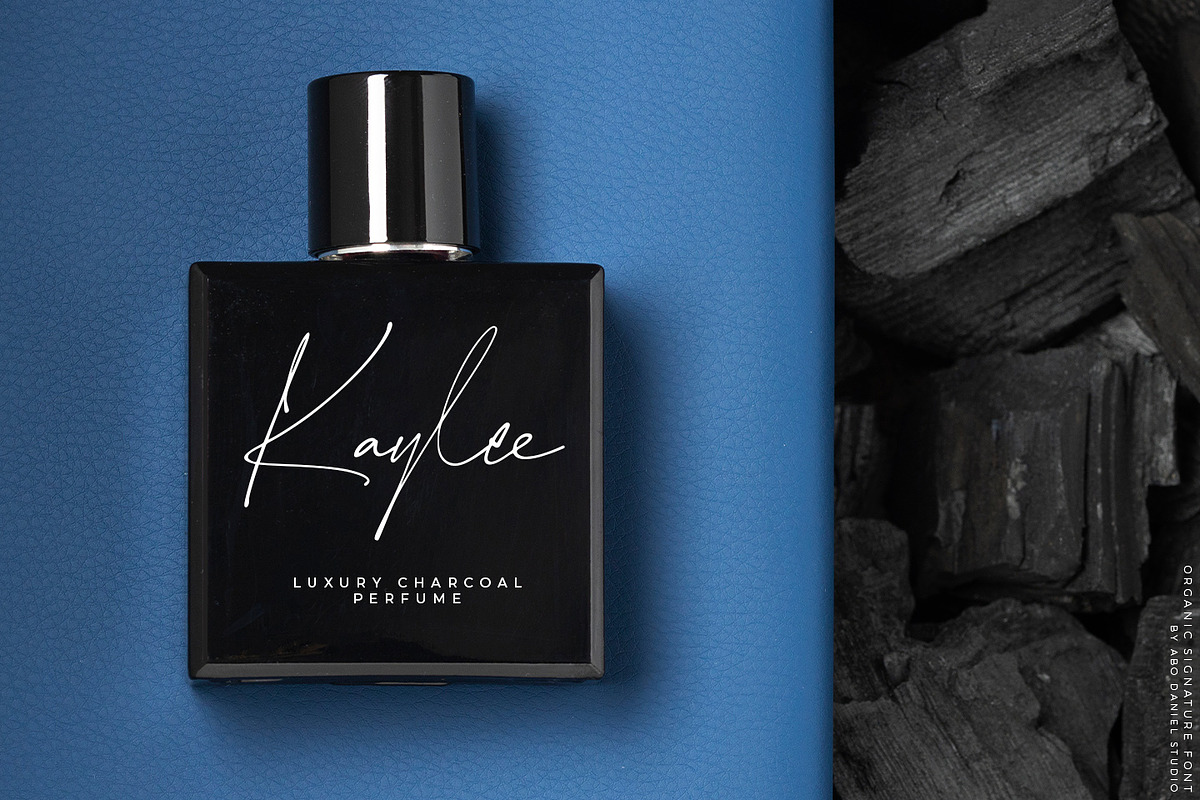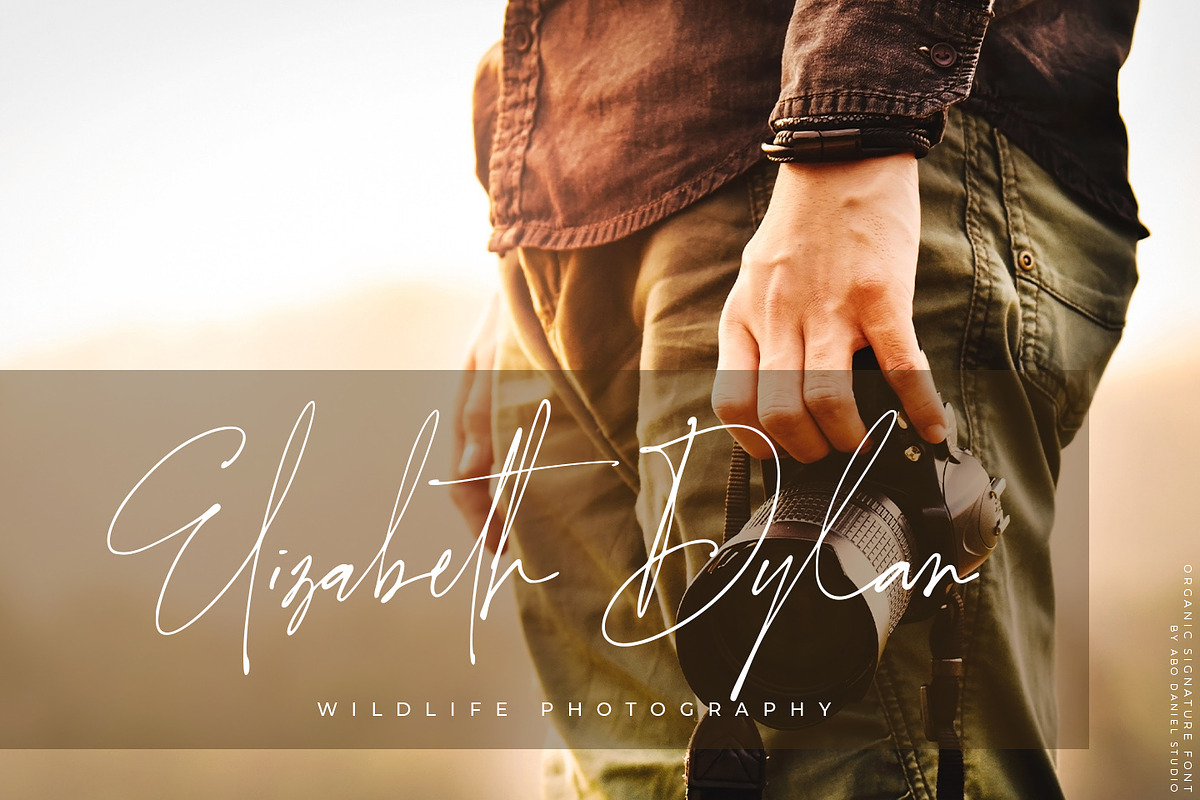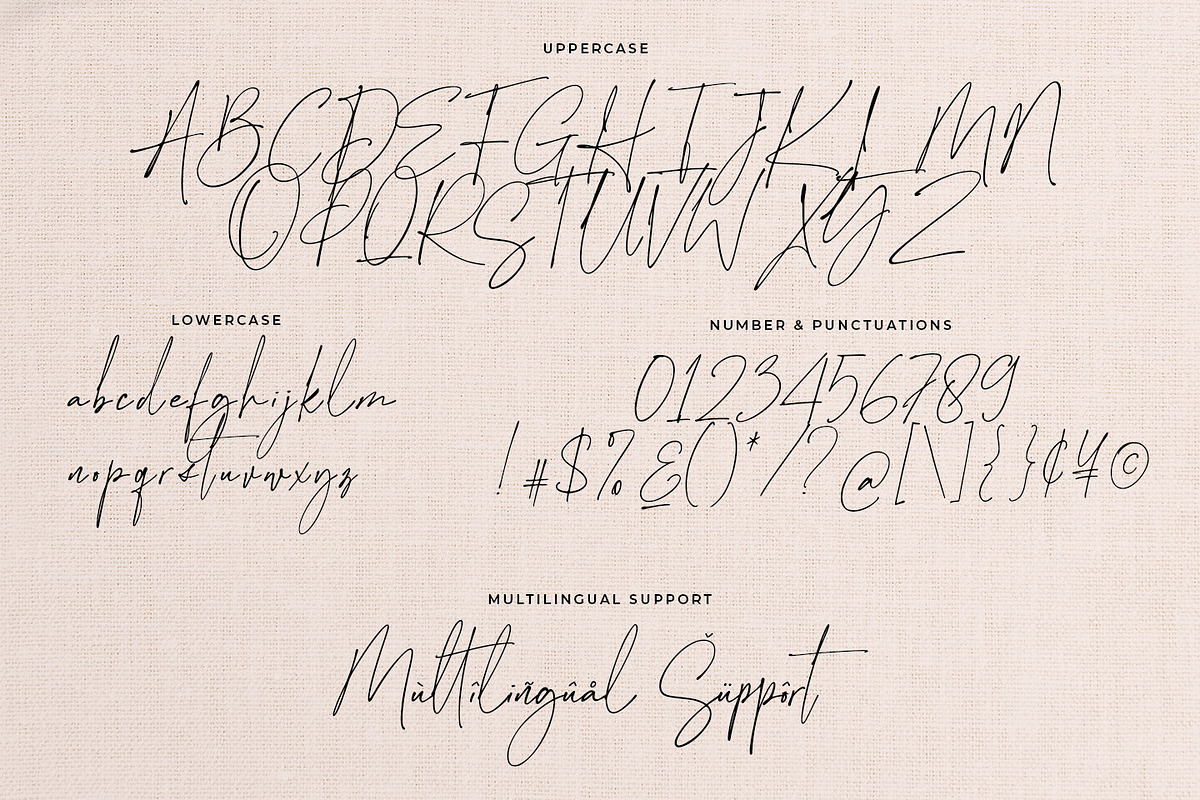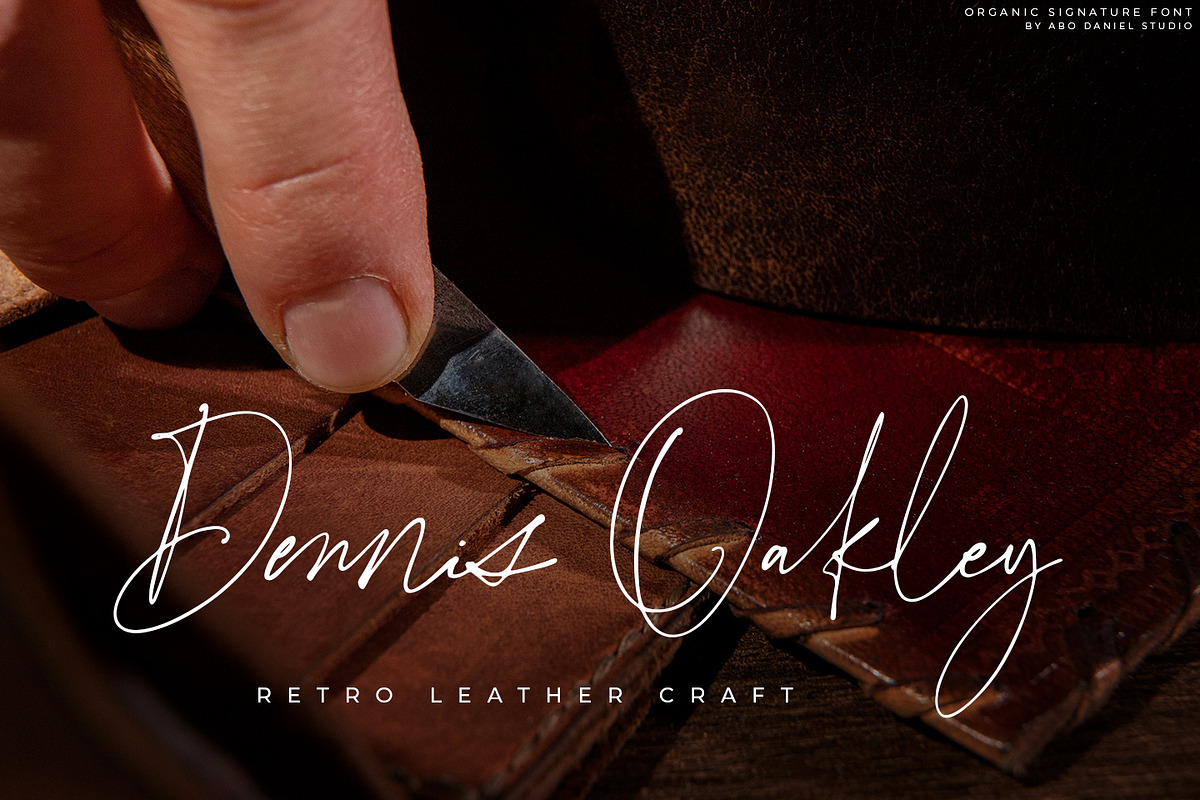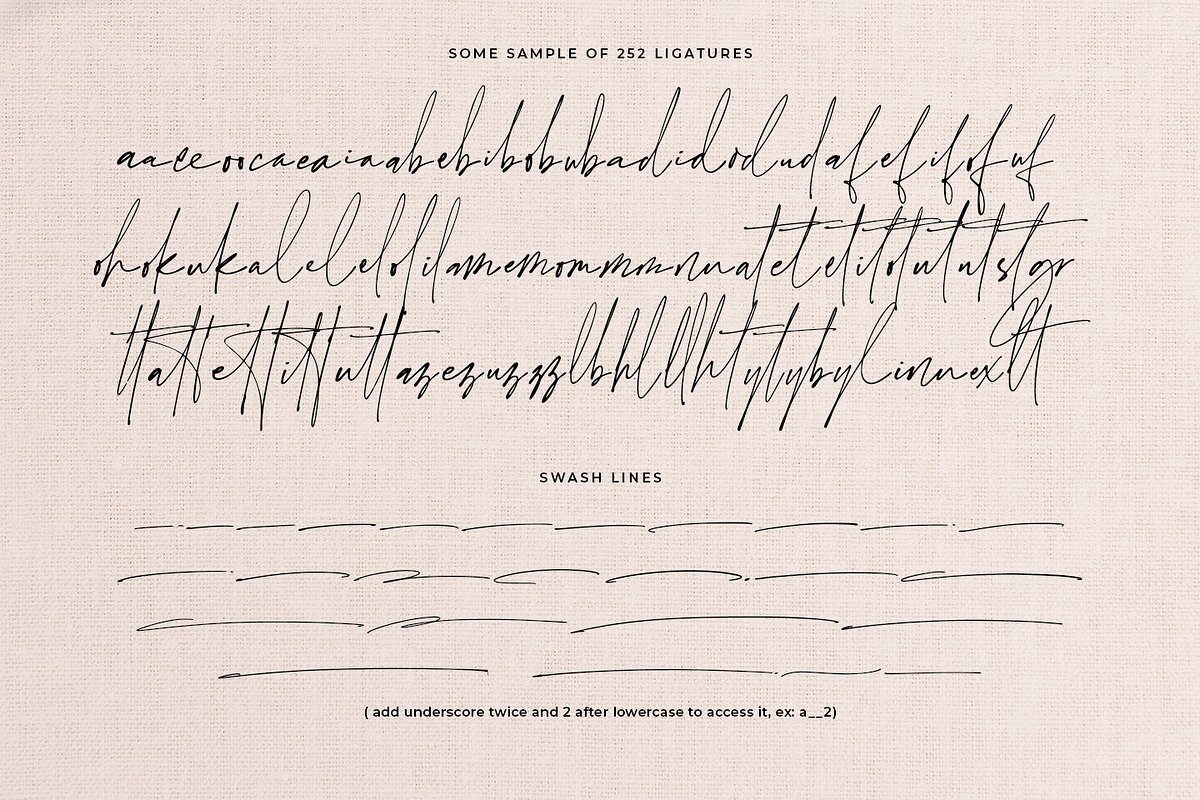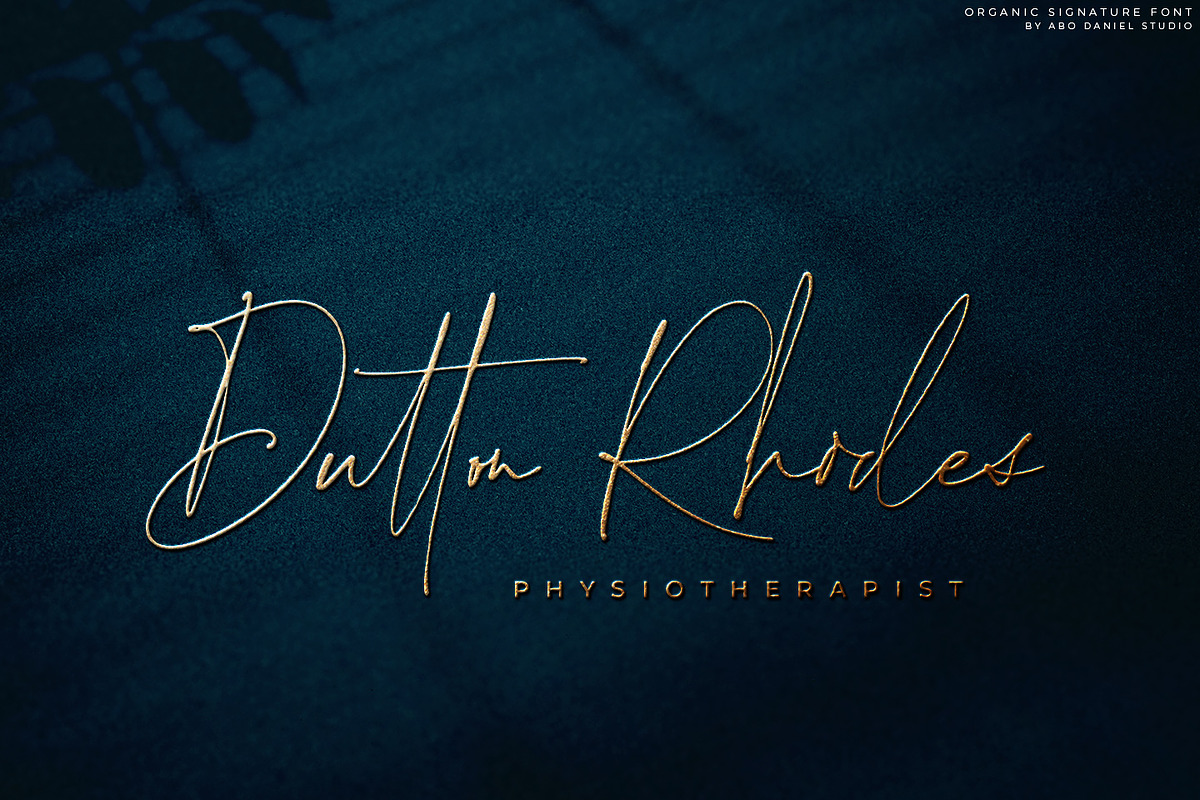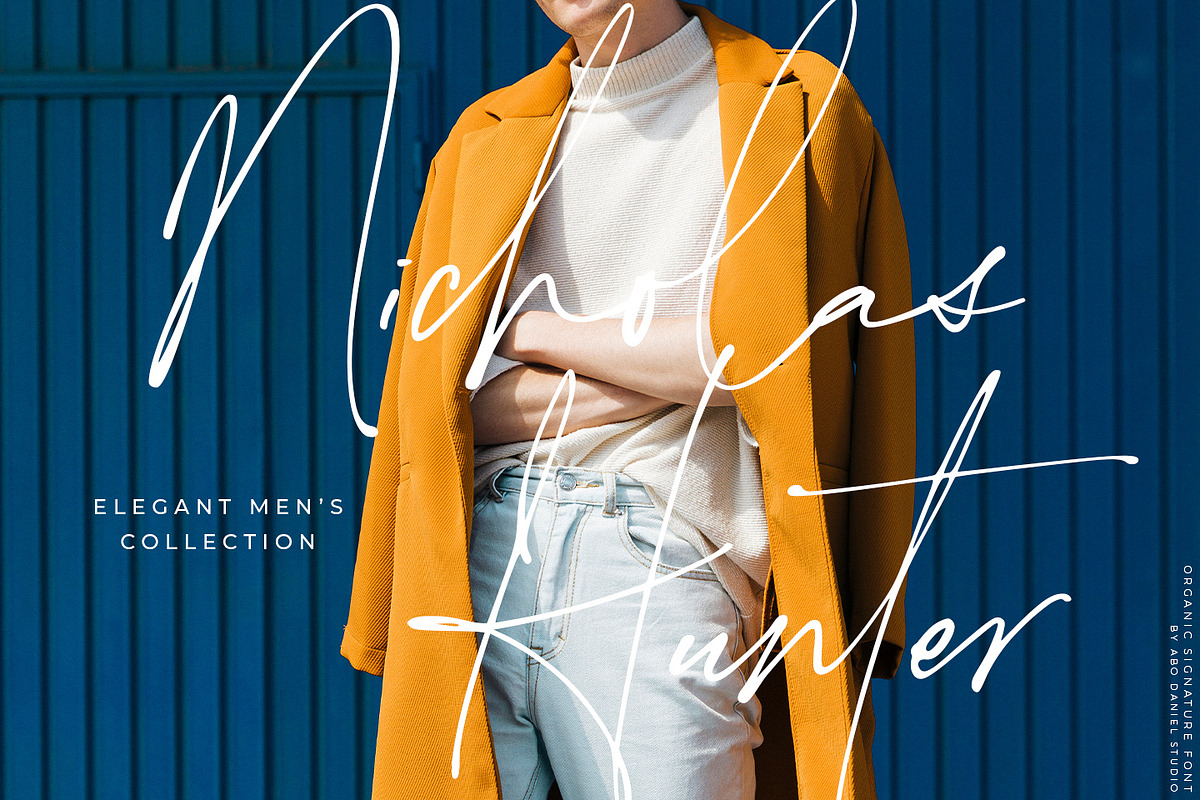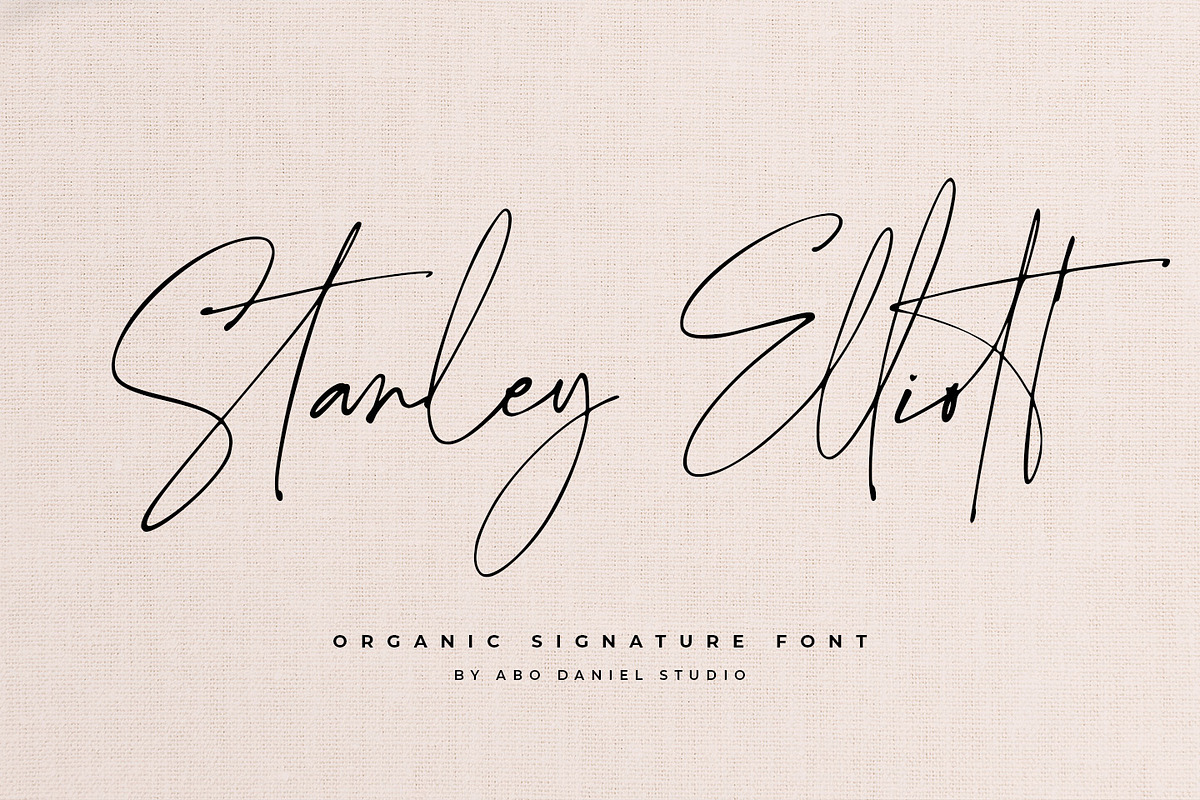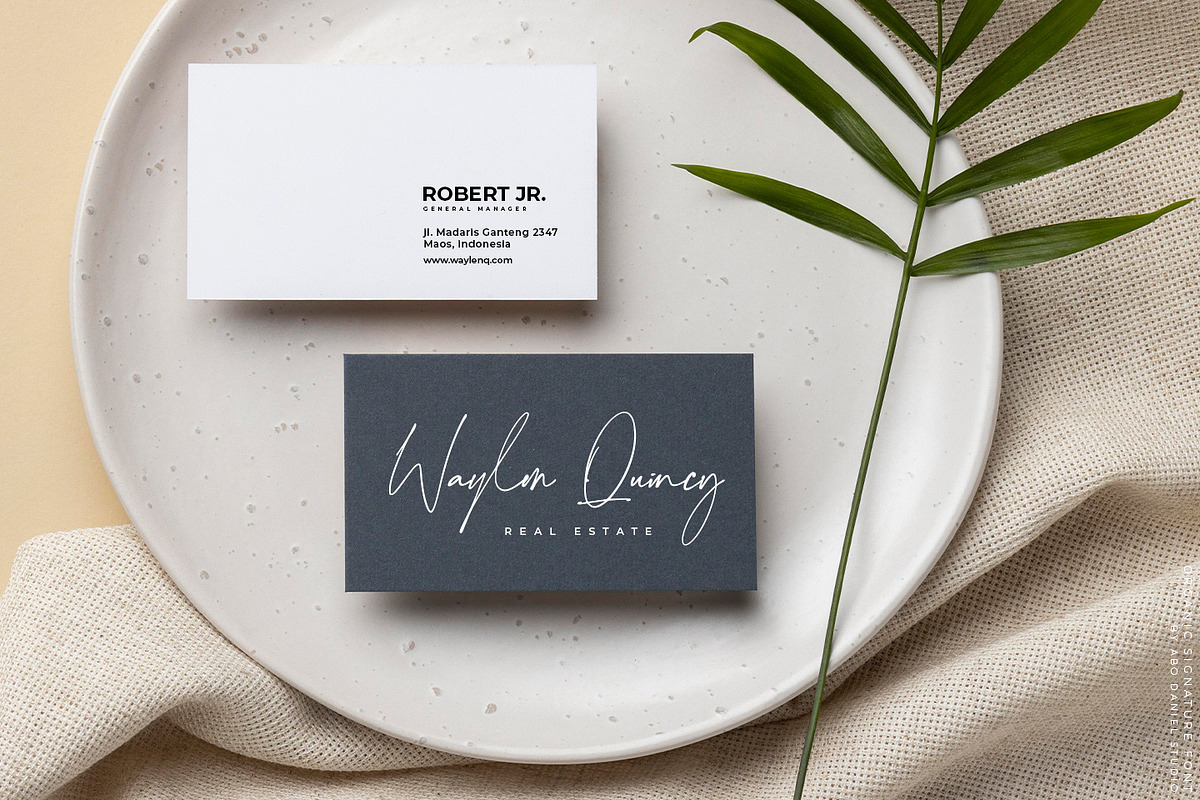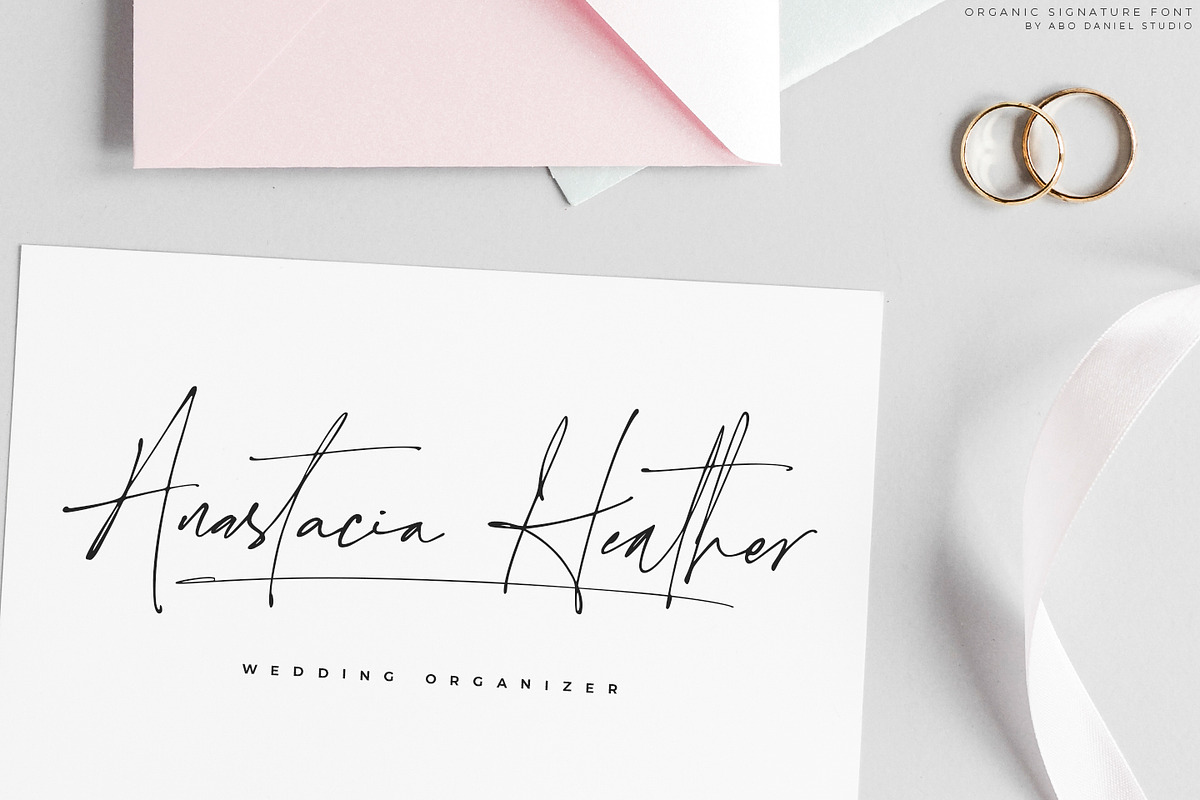
Stanley Elliott
introducing
STANLEY ELLIOTT an organic signature font.
Add a classy touch to your designs with Stanley Elliott.
Crafted to emulate the fluidity of natural handwriting, this font captures the essence of a handwritten signature with its smooth, flowing lines and unique character. It is perfect for branding, logos, cards, wedding invitations and many more Stanley Elliott looks more impressive and natural with 252 easy-to-access ligatures, even if you only type it.
- Number & punctuation
- 252 Ligatures
- Swash lines